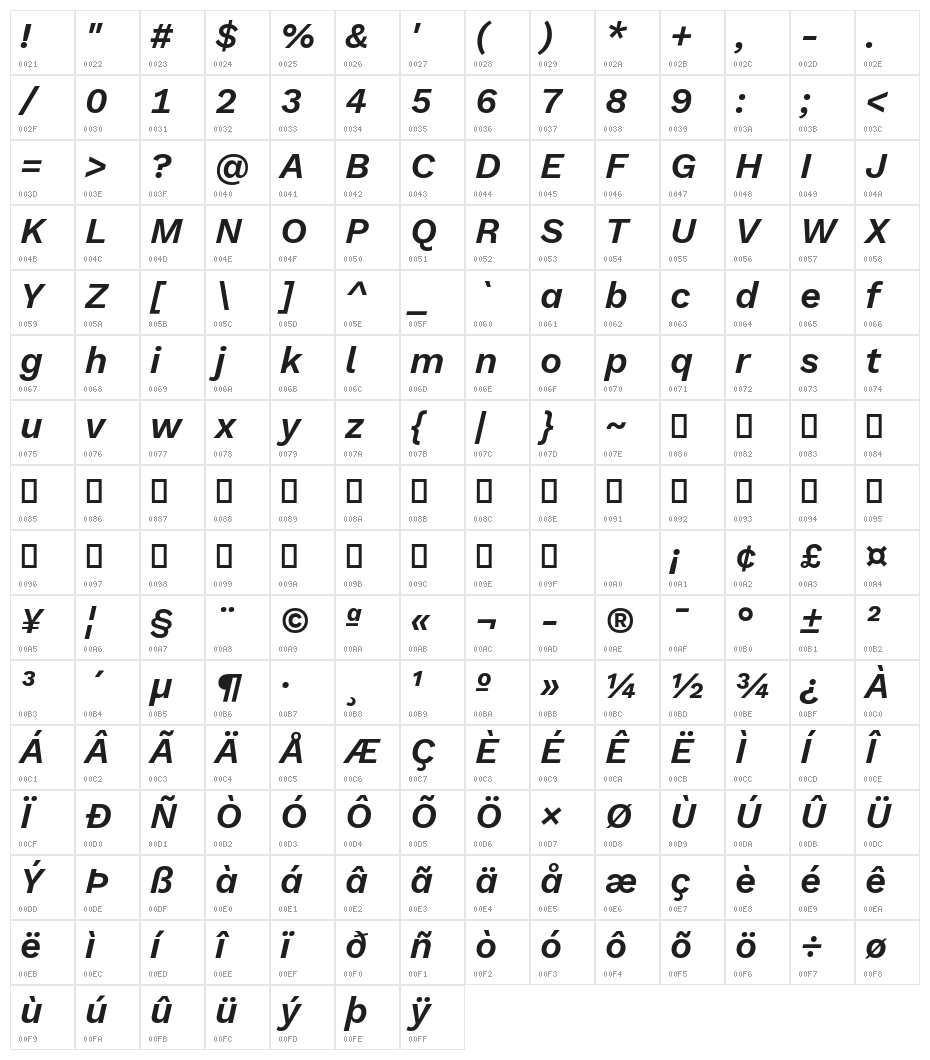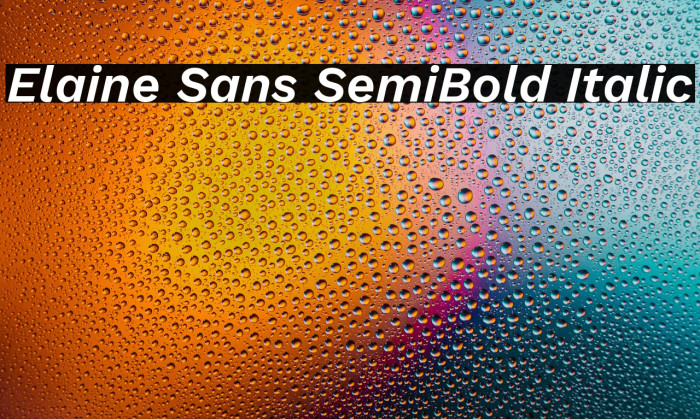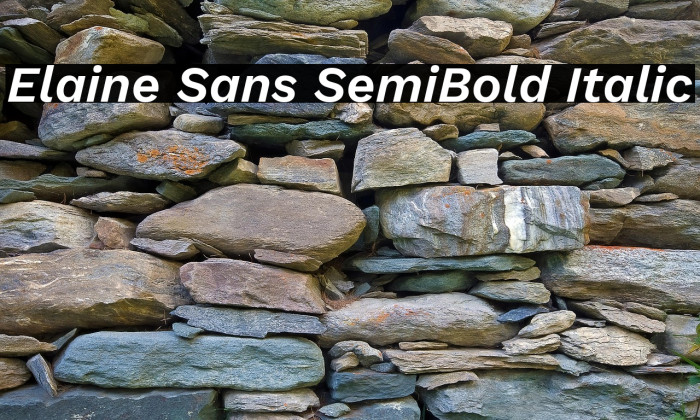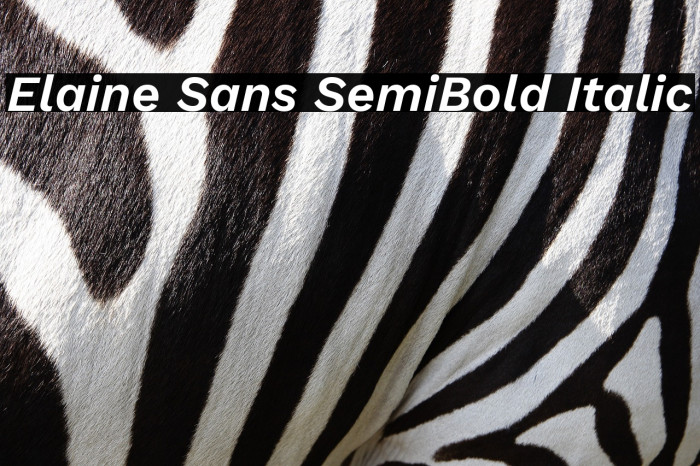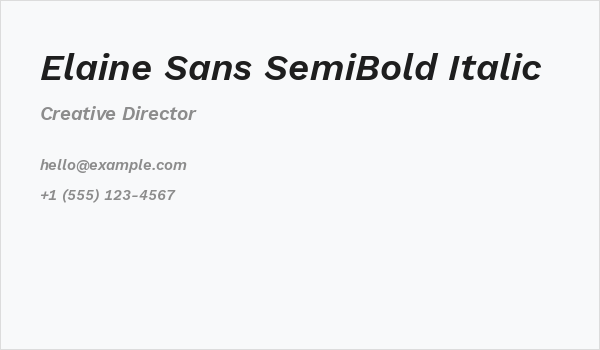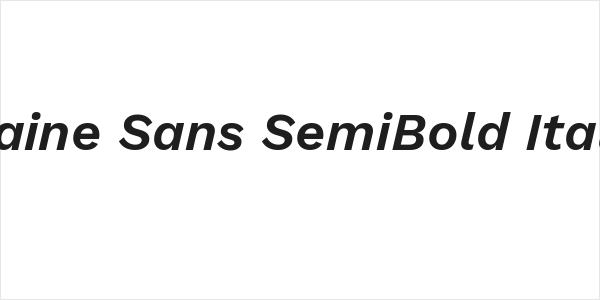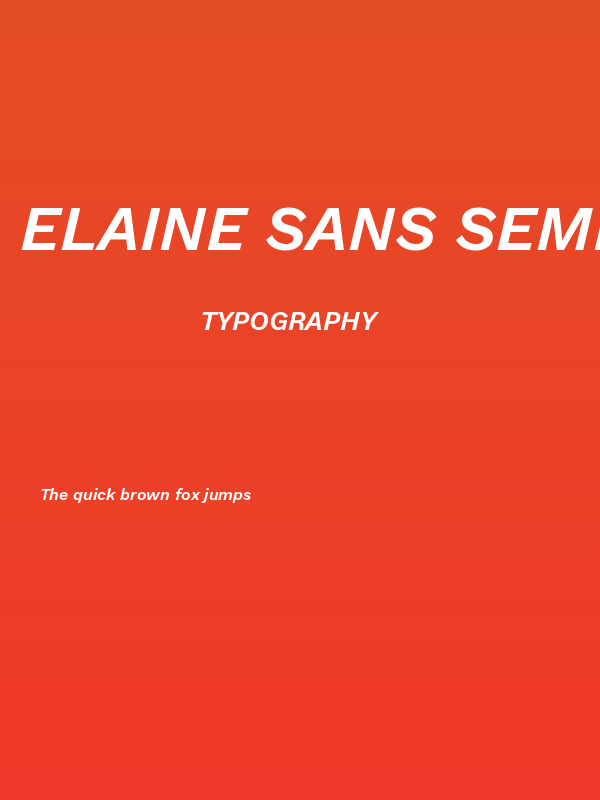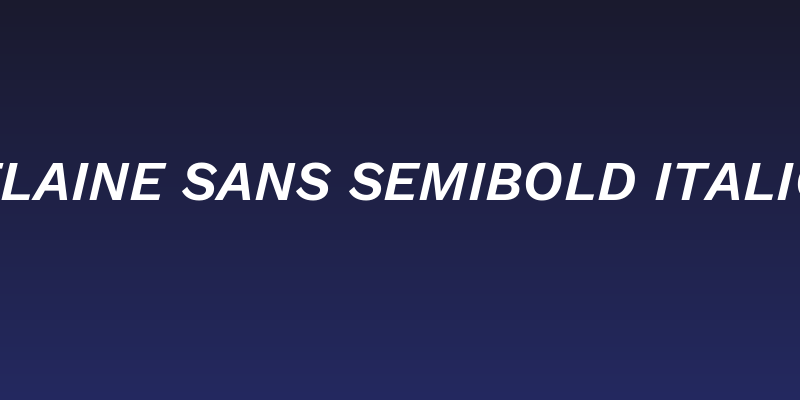
Elaine Sans SemiBold Italic Font
Elaine Sans SemiBold Italic Description
This typeface features a clean and modern sans-serif style with a semi-bold weight, providing a strong yet approachable appearance. The italic slant adds a dynamic and forward-moving feel, making it suitable for contemporary designs. The characters are well-proportioned, with smooth curves and a consistent stroke width that enhances readability. The font maintains a balanced character spacing, ensuring clarity and legibility across various sizes. Its versatility makes it ideal for both digital and print media, offering a professional and polished look.
| Proposed Projects | Ideal for branding, advertising, web design, and editorial layouts where a modern and clean look is desired. |